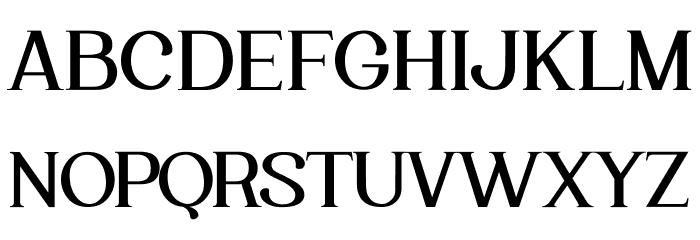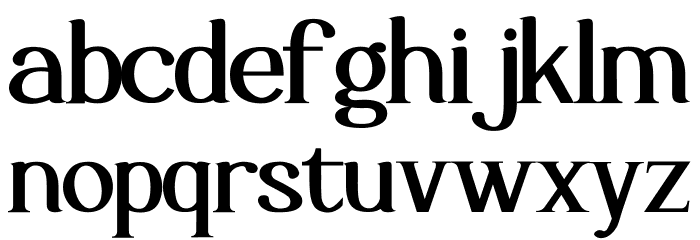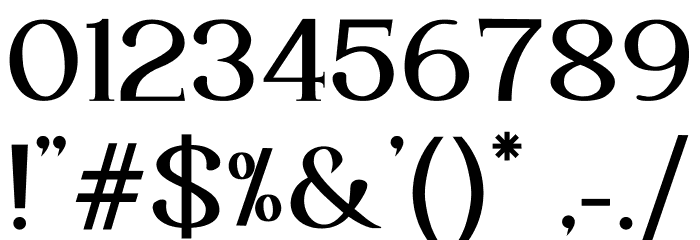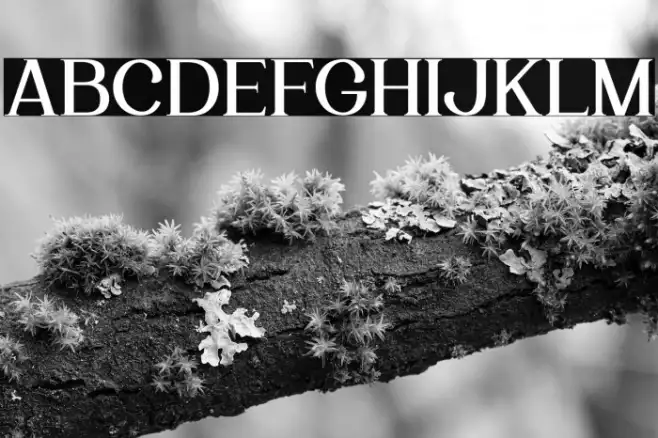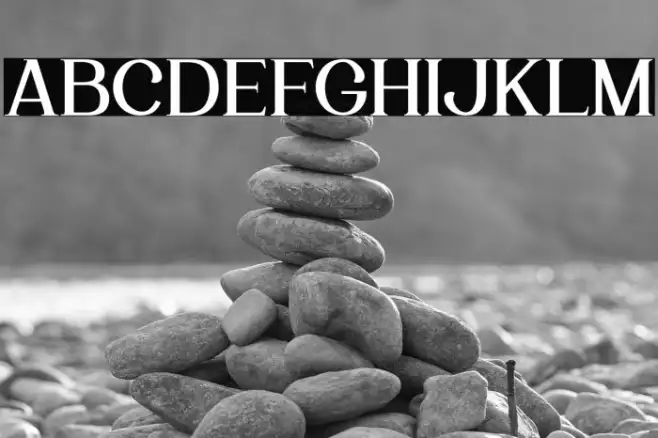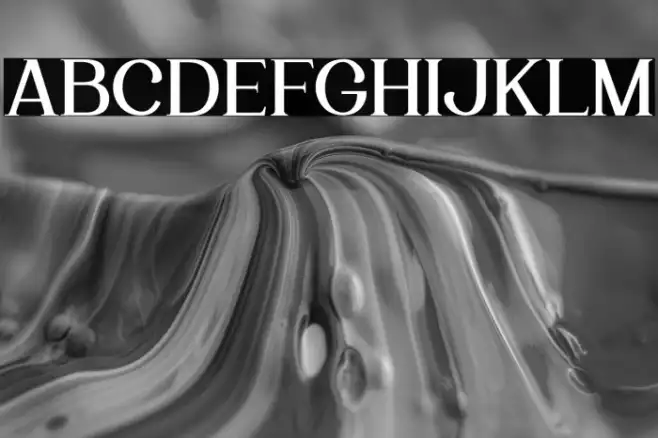
Luimp Bold Font
This font features a classic serif style with strong, bold strokes that convey a sense of authority and tradition. The uppercase letters are tall and elegant, with pronounced serifs that add a touch of sophistication. The lowercase letters maintain a consistent style, offering a harmonious blend of curves and straight lines. The numerals are clear and easily distinguishable, making them suitable for a variety of uses. Special characters are well-integrated, maintaining the overall aesthetic of the font. The design is both timeless and versatile, suitable for formal and professional applications.
A bold, classic serif font with strong strokes and elegant serifs.
- Font: Luimp Bold
- Proposed Projects: Ideal for book covers, formal invitations, branding materials, and editorial design.
- Category: Serif
- Overall Style: Classic